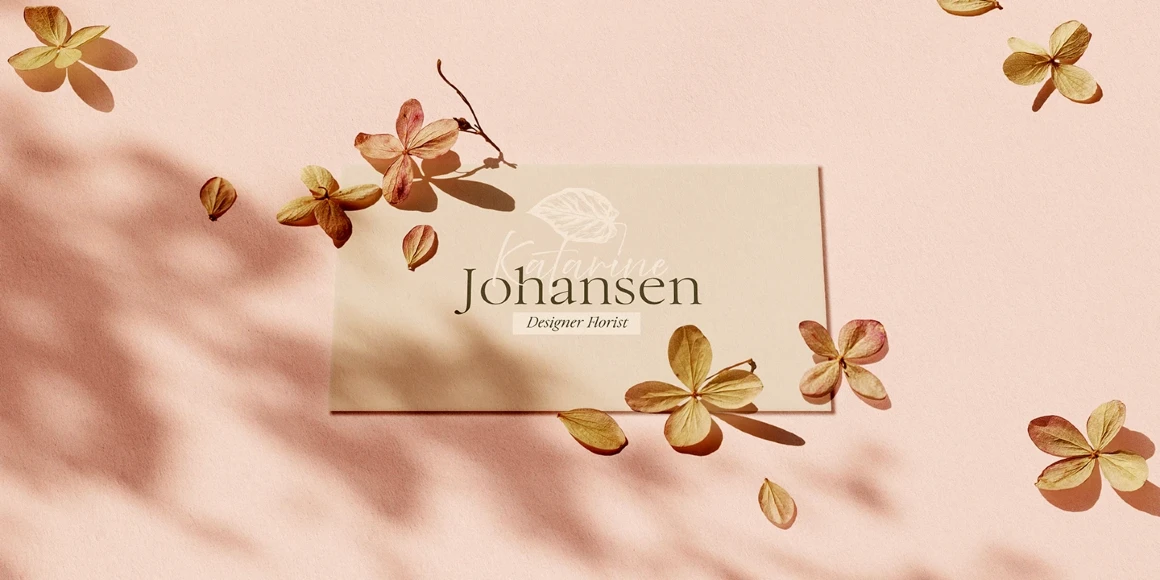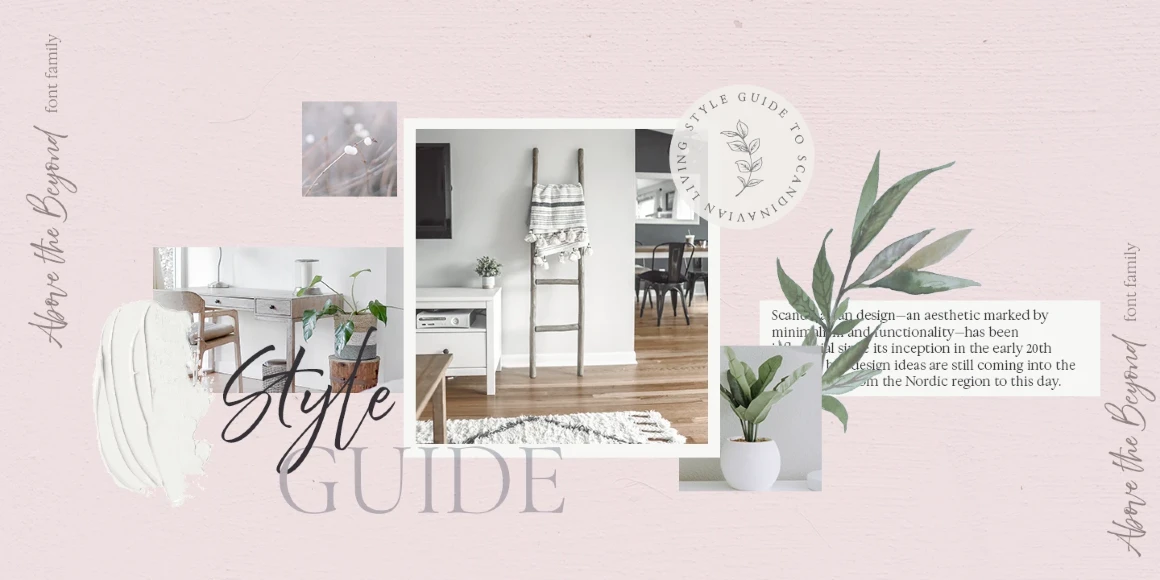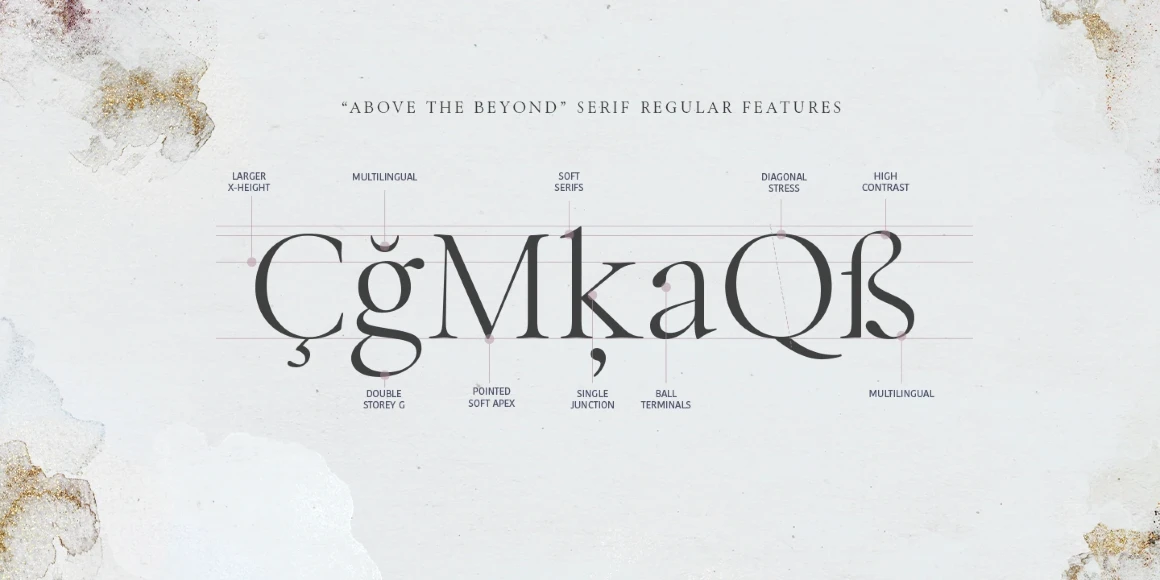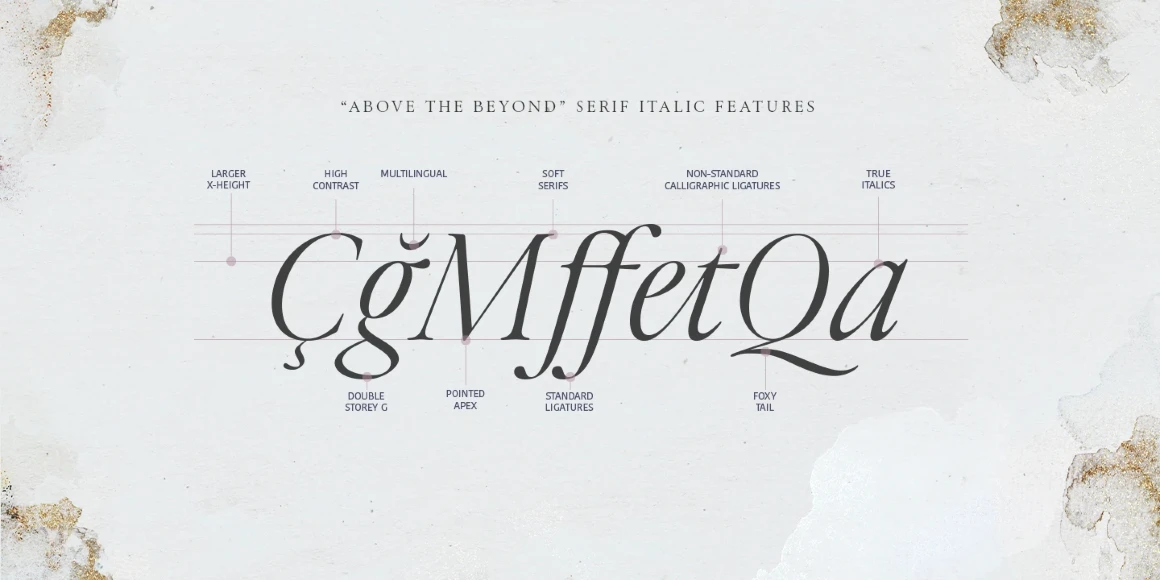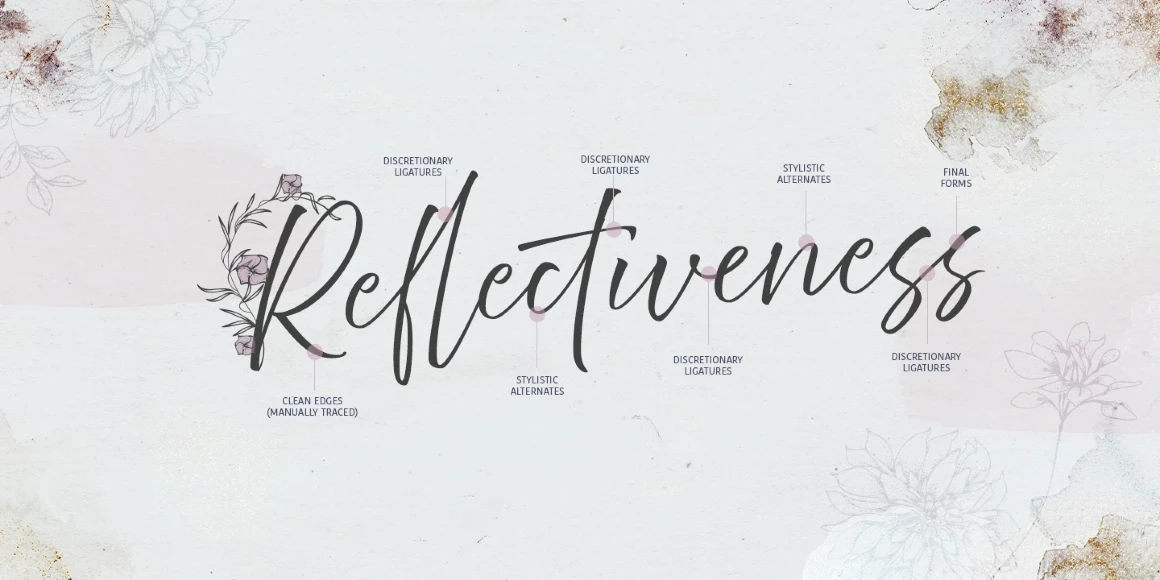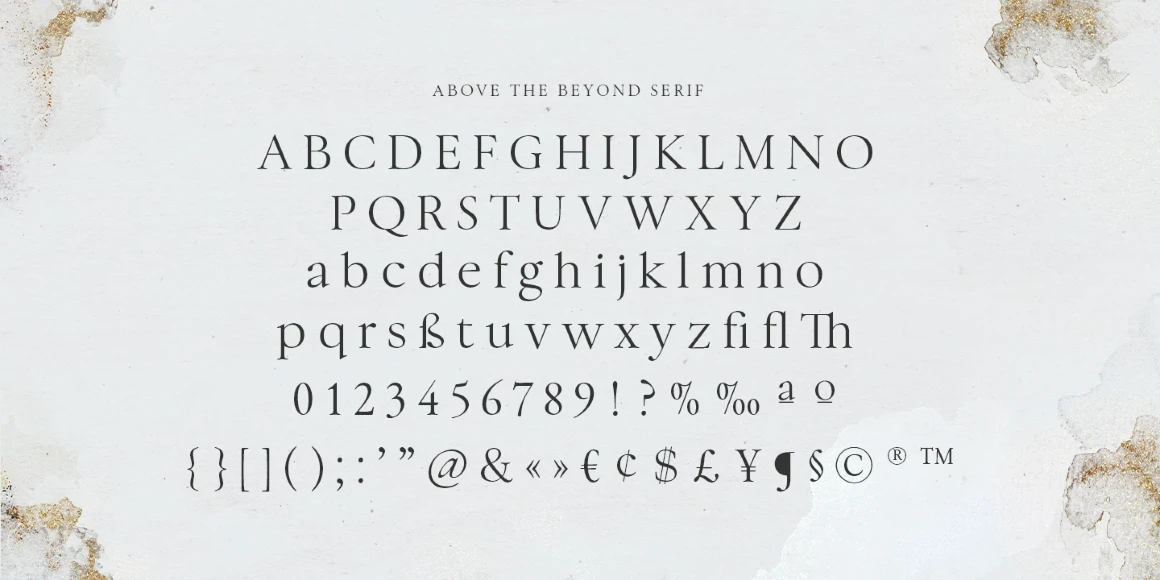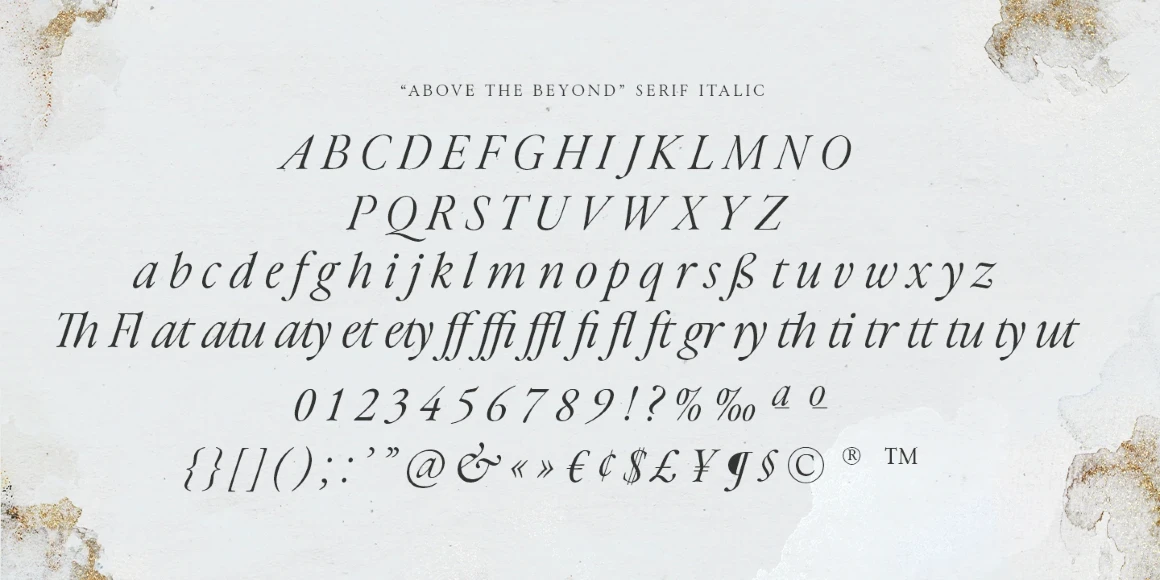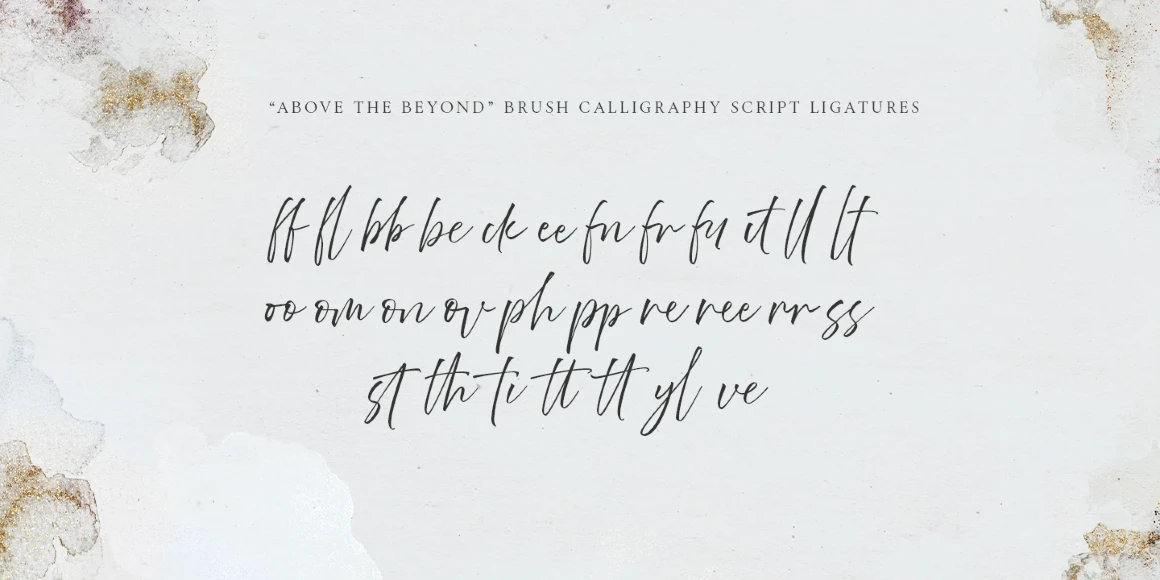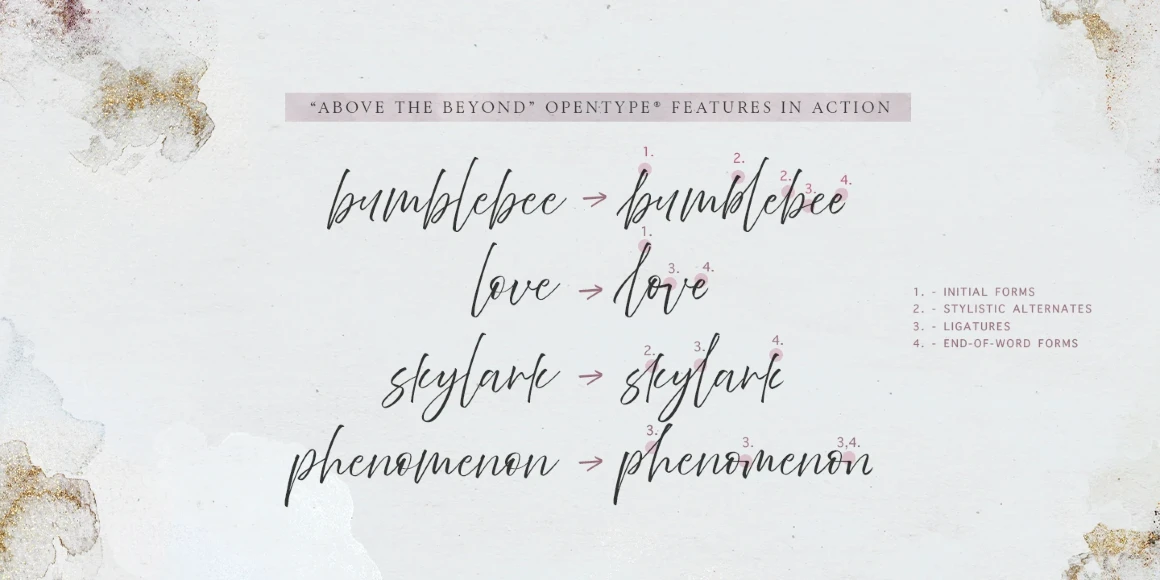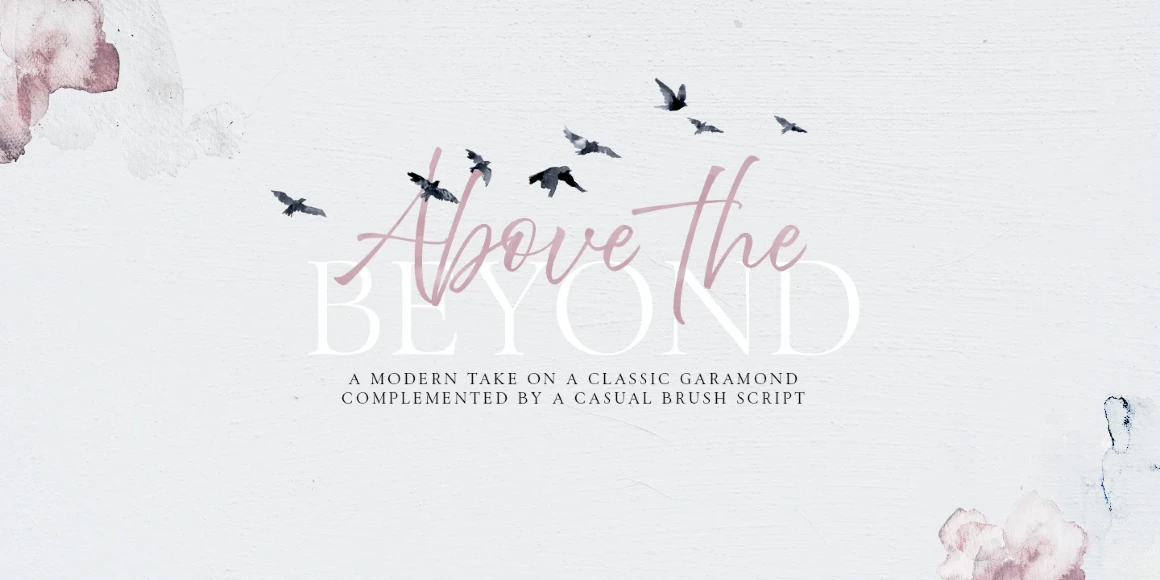
Above the Beyond Serif
By Elena Genova
Above the Beyond Serif Regular
Above the Beyond Serif Regular Italic
Above the Beyond is a striking family comprising a Garamond-like serif with an italic and a casual brush script. The high-contrast Serif has short ascenders and descenders, making it more readable. The considered design of the Italic includes ligatures that urge it to be even more calligraphic. And with thoughtful enhancements, the Script can look even more naturally handwritten. Above the Beyond is perfect for all kinds of designs: t-shirts, branding, magazines, cards, packaging, and more.